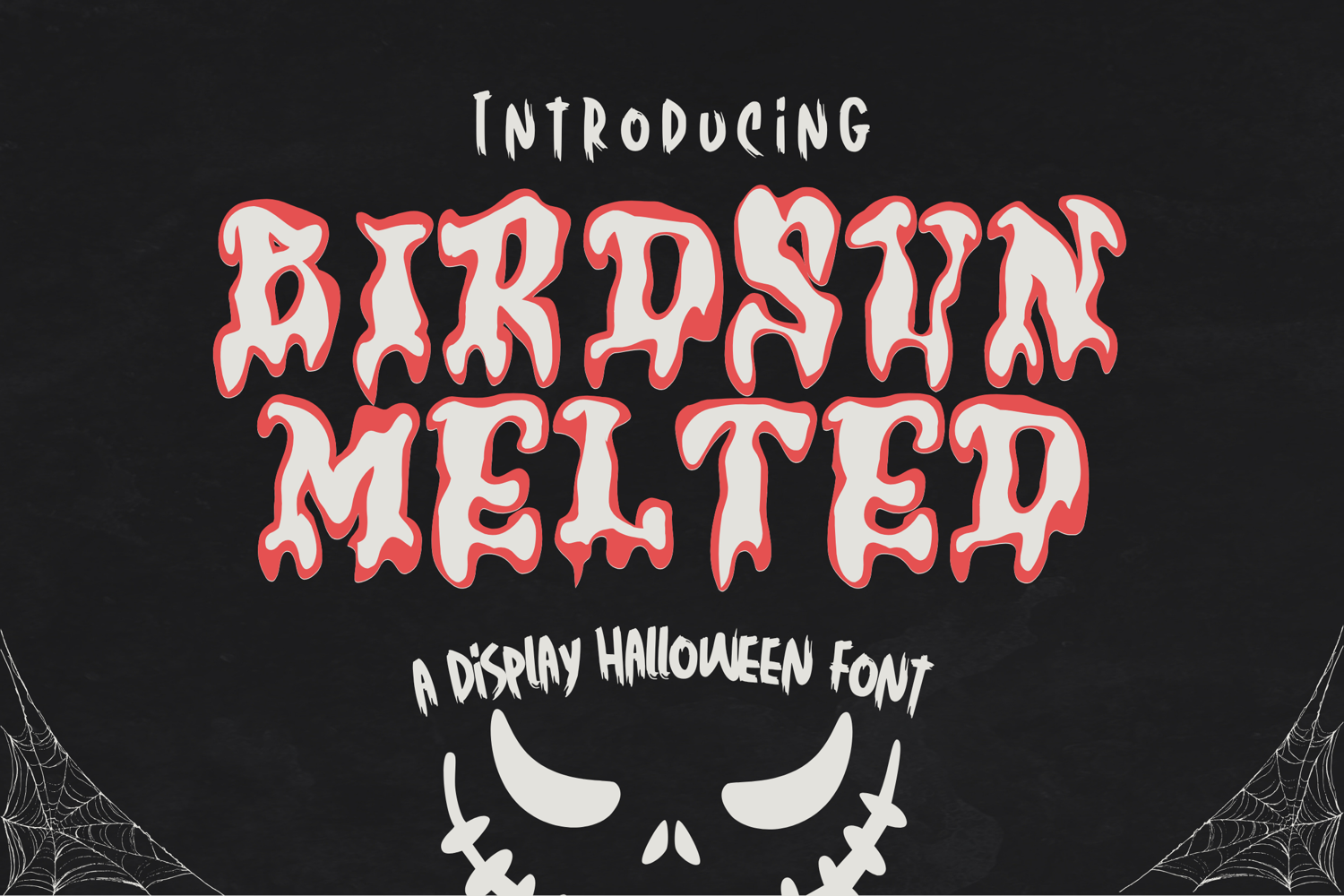
Birdsun Melted - A Playful Font Duo
Birdsun Melted
Birdsun Melted Outline
Birdsun Melted is a delightful font duo that blends quirky handwritten charm with a soft, melted aesthetic—perfect for designs that need a touch of whimsy and fun. This dynamic pair features two complementary styles: a playful Regular and a Outline melted display font that work harmoniously to bring your creative projects to life.
From branding projects and product packaging to social media graphics, greeting cards, and kids’ apparel, Birdsun Melted is the go-to combo for designers who love personality-packed typography.
🎨 Perfect For:
• Children’s book covers & birthday invites
• Logo designs & product labels
• Seasonal quotes & posters
• DIY projects & stickers
• Social media posts & YouTube thumbnails